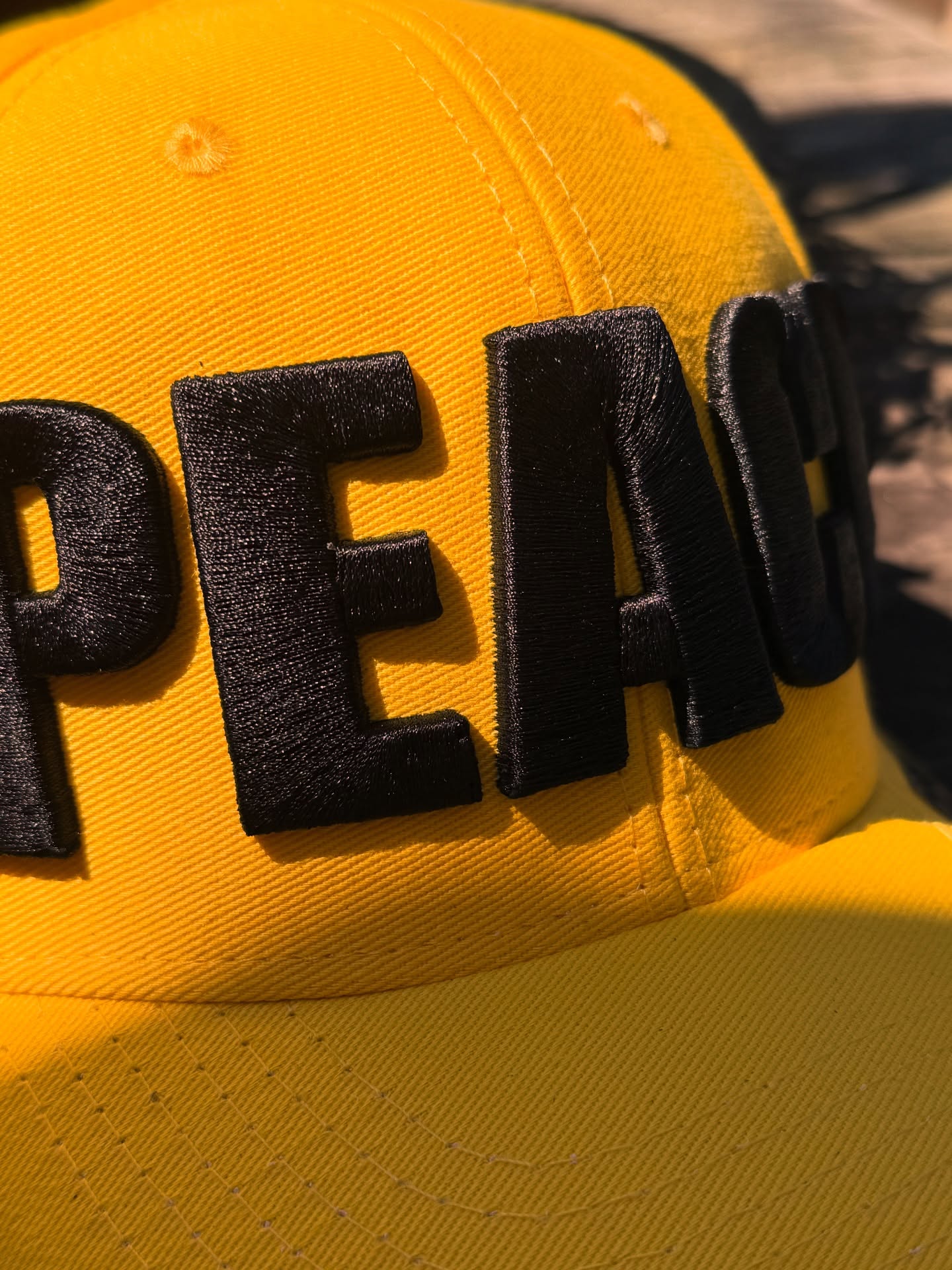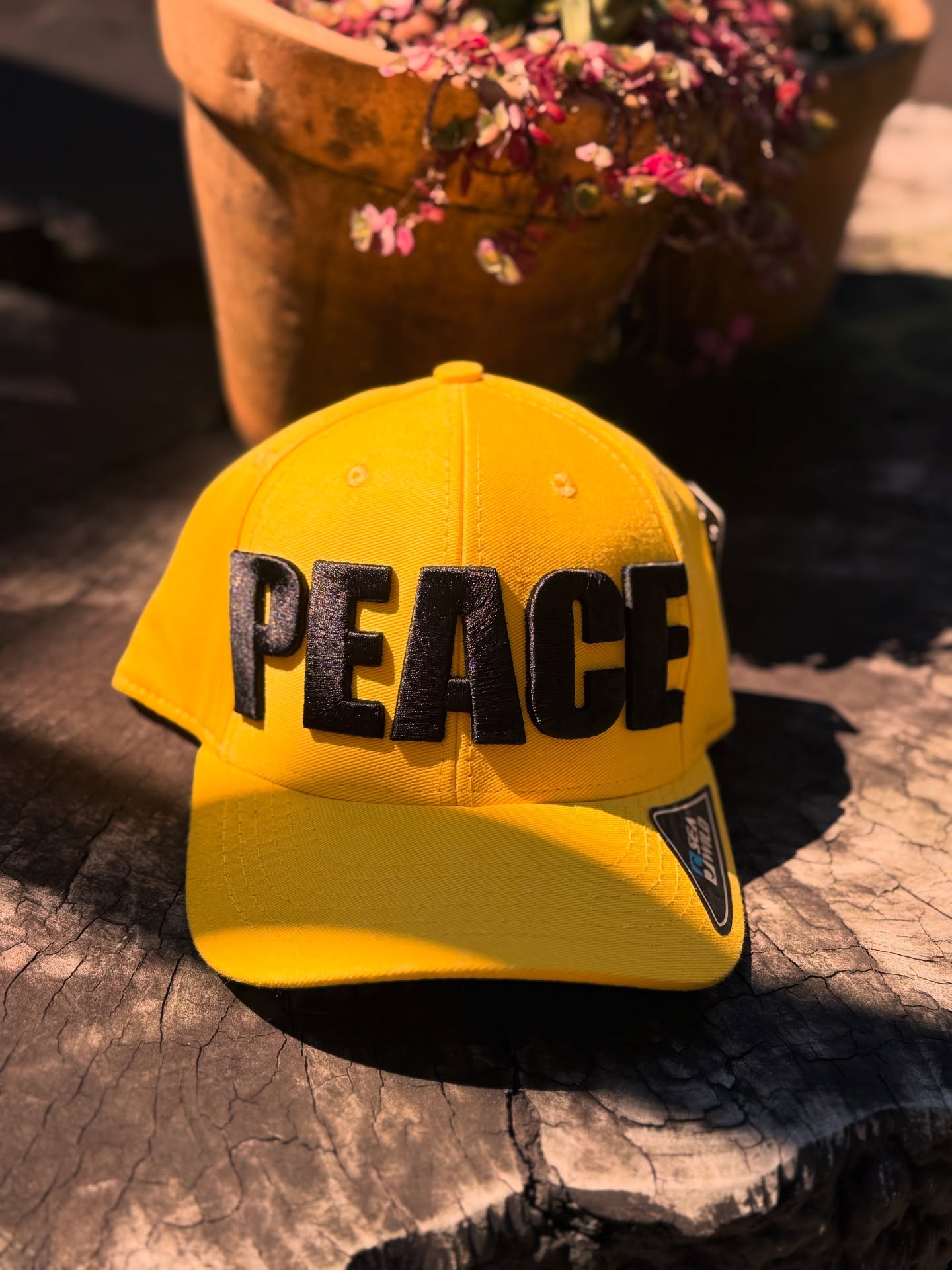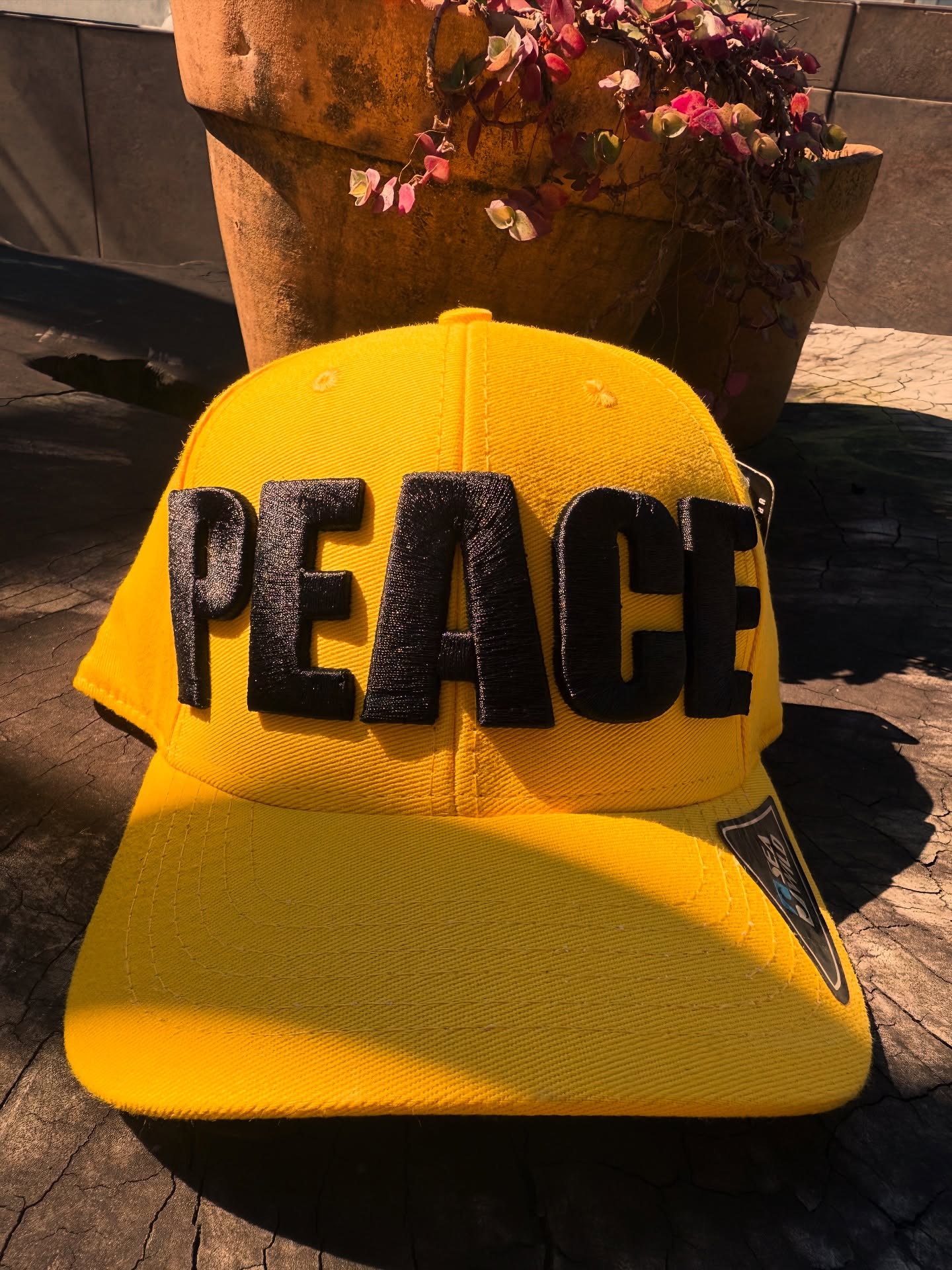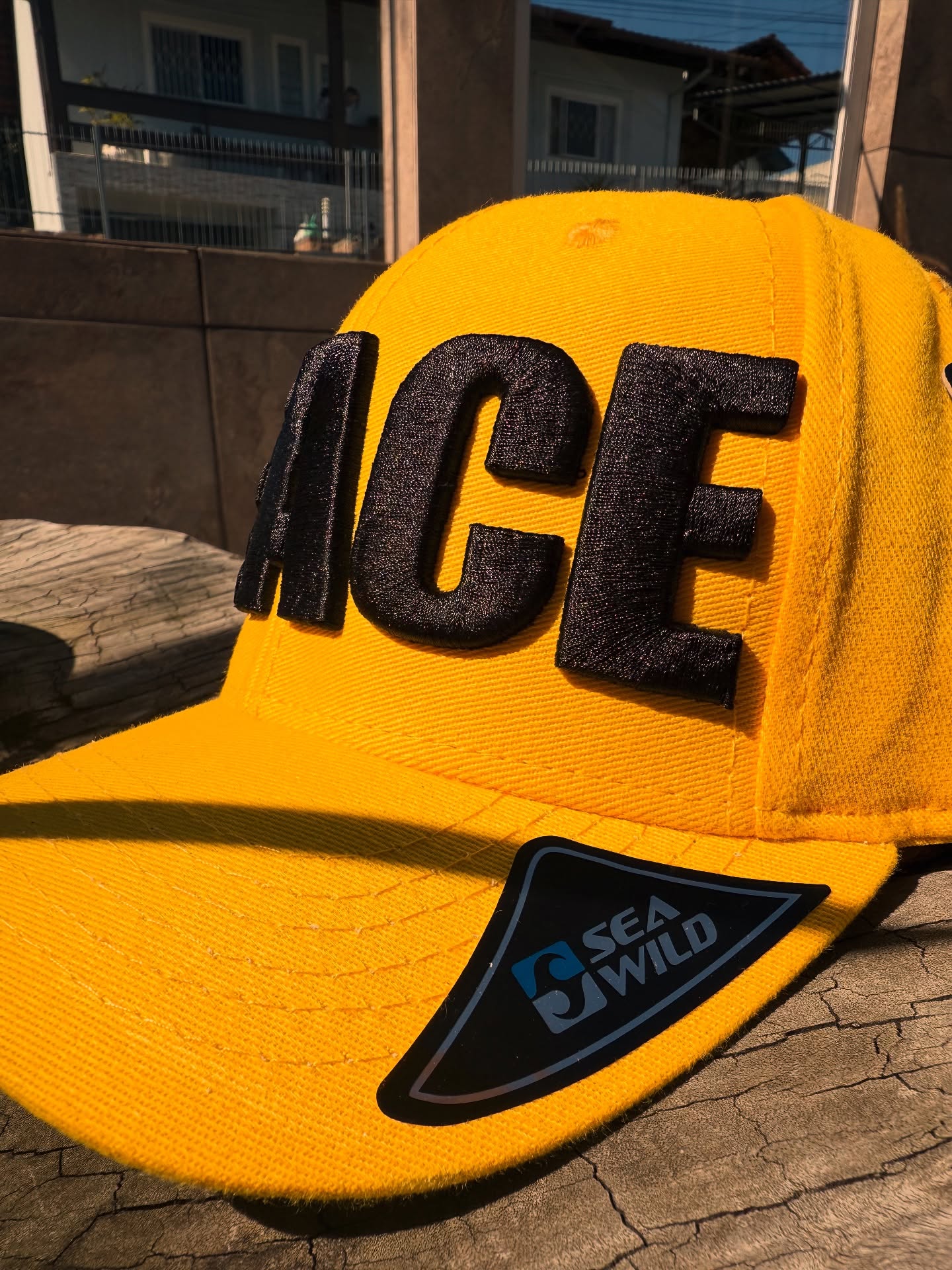
Big Bold – 3D Puff Power Font
Make a statement with the Big Bold 3D Puff Font—oversized, ultra-bold letters raised high for maximum texture and impact. Clean lines and crisp edges give every word serious presence, expertly embroidered in Dubai for lasting clarity and style.